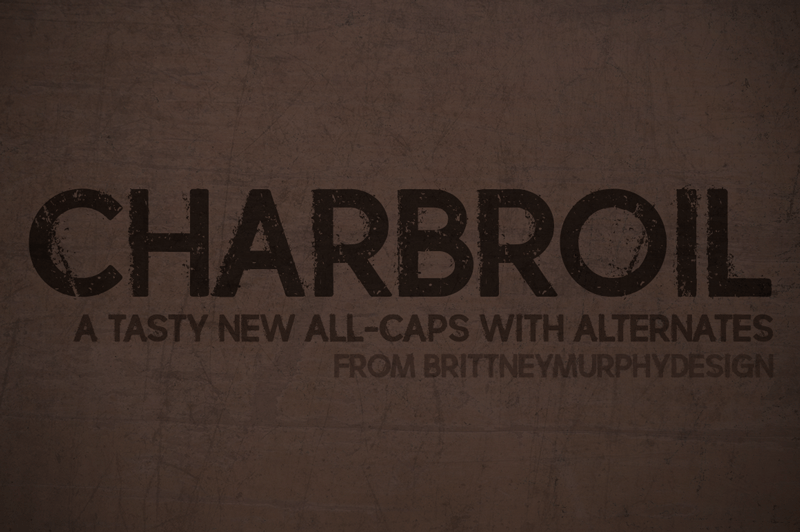
Font name: | Charbroil |
Author: | Brittney Murphy Design |
Note by Brittney Murphy Design | |
Charbroil is a distressed all-caps font with alternates. Mix and match between the upper and lowercase for a custom look. Great for logos and headlines! Free for personal and non-profit use. For commercial use, please purchase a license: http://brittneymurphydesign.com/downloads/charbroil/ |